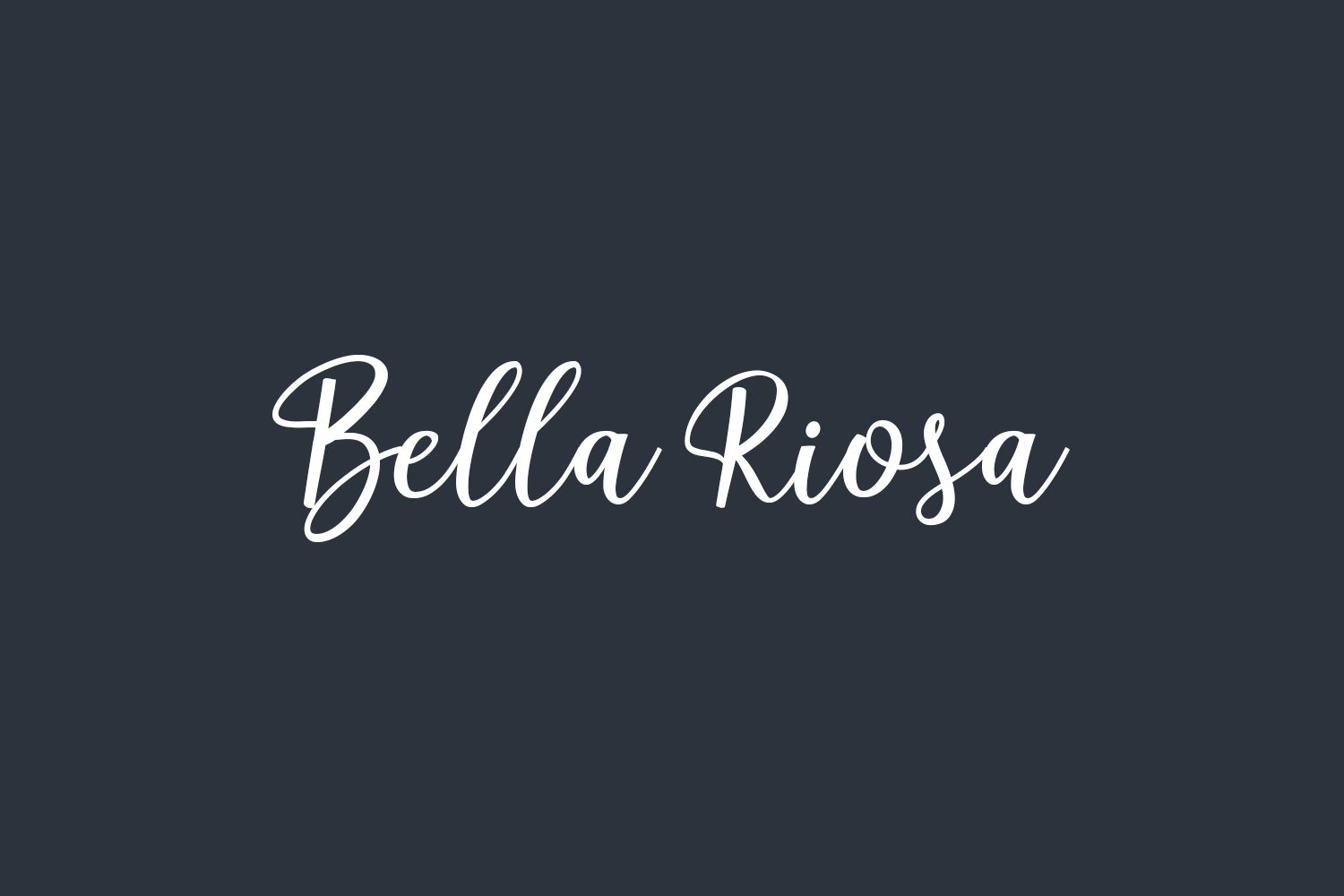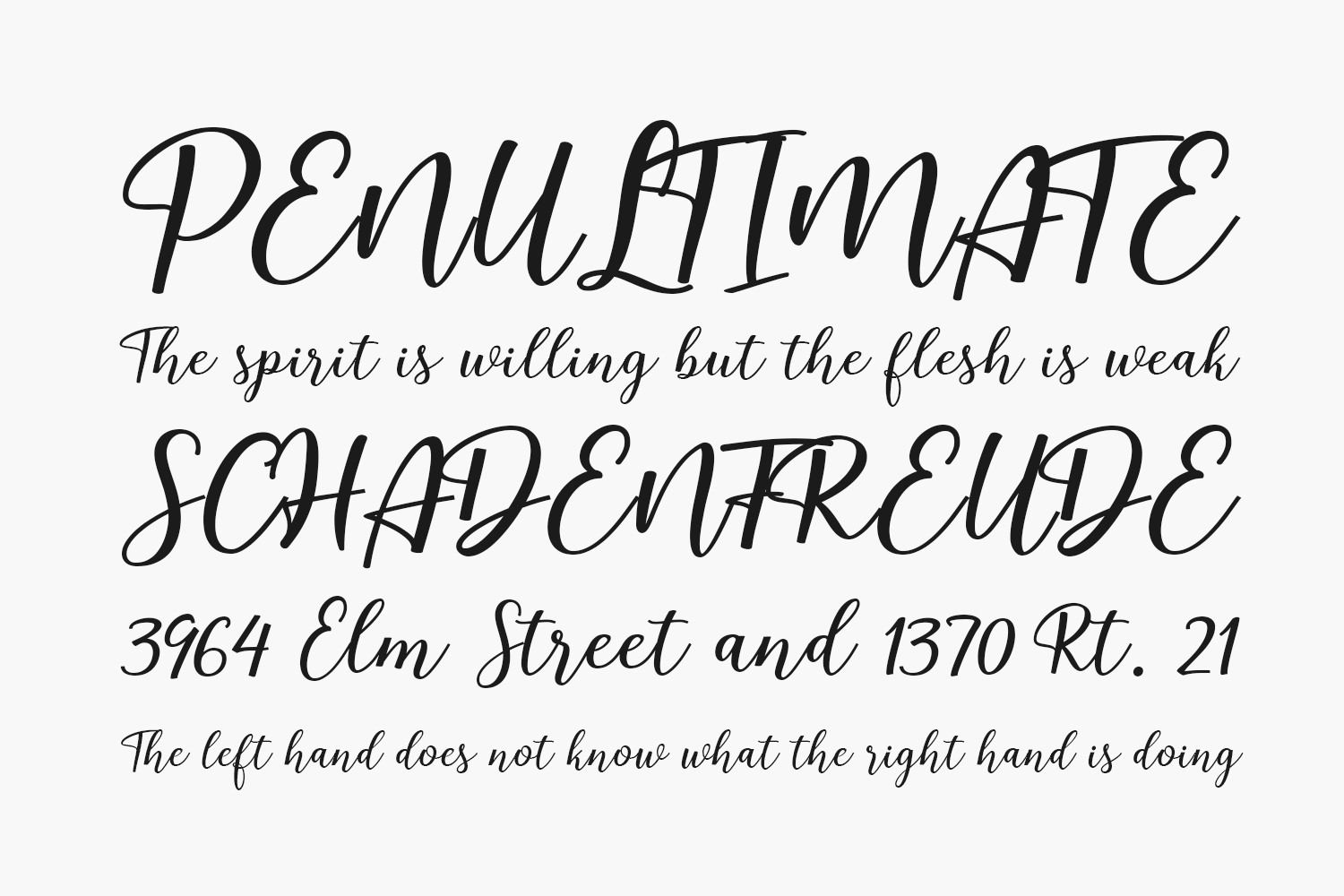
Bella Riosa Free Font is a lovely and timeless handwritten font. It is the best choice for creating eye catching logos, branding, and quotes. Bella Riosa Free Font was designed by Attract Studio and is free for personal use only. Please purchase the full version for commercial use.